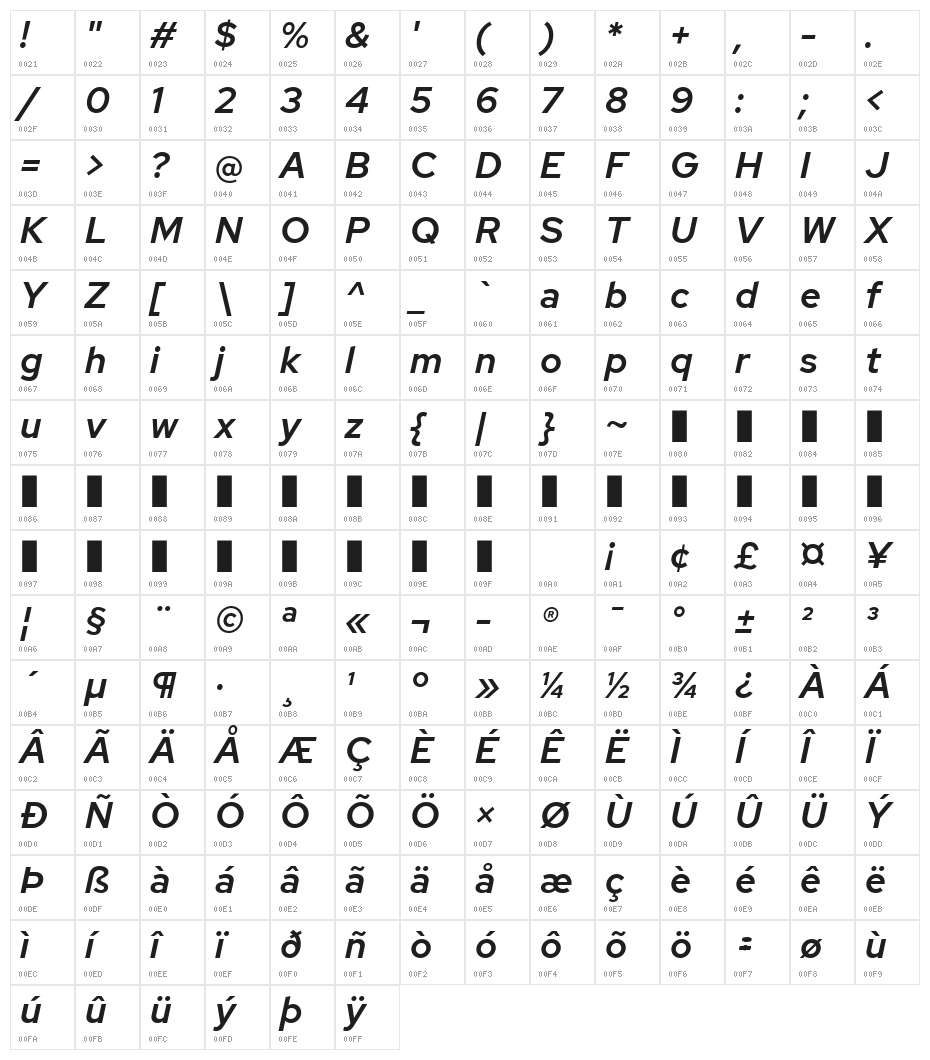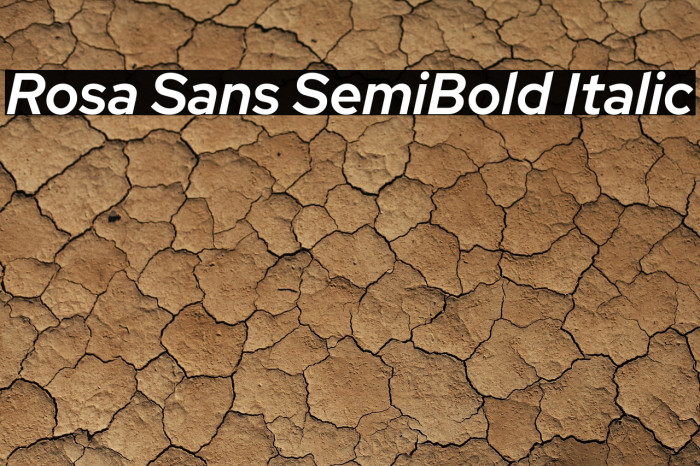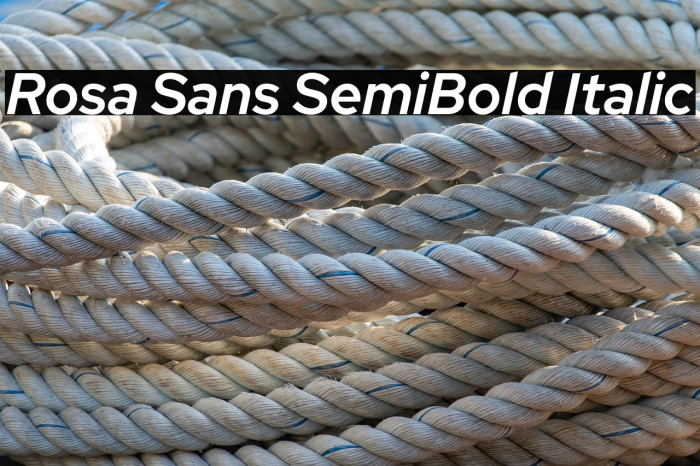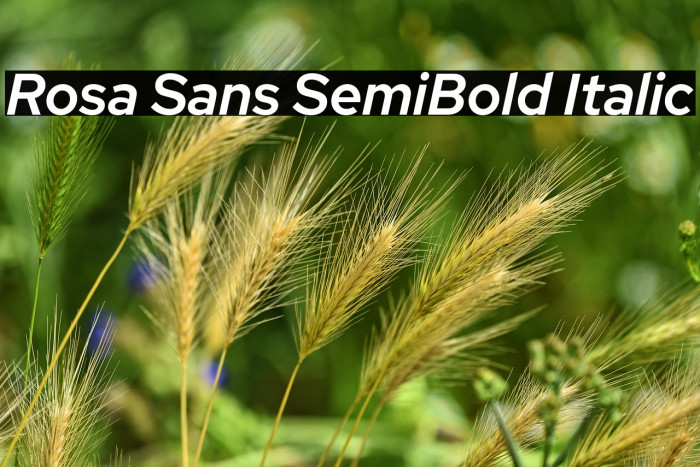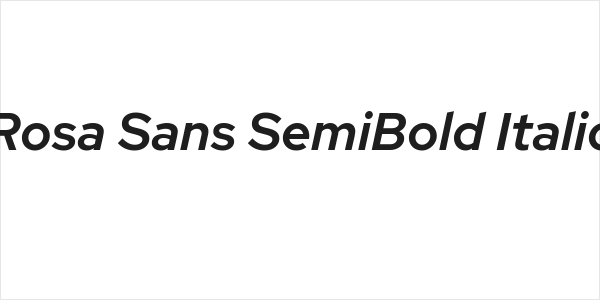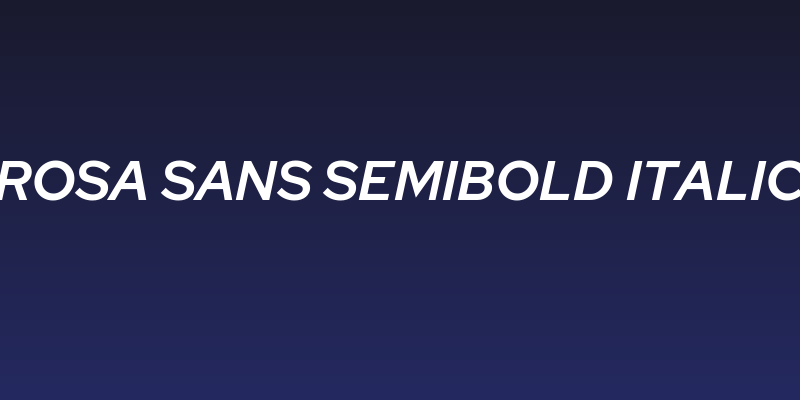
Rosa Sans SemiBold Italic Font
Rosa Sans SemiBold Italic Description
This font exhibits a sleek and modern sans-serif style with a semi-bold weight, providing a strong yet elegant appearance. The italicized form adds a dynamic and forward-leaning character, making it suitable for contemporary design projects. The characters are well-proportioned with a consistent stroke width, ensuring readability across various sizes. The numerals and special characters maintain the same stylistic features, ensuring uniformity throughout. Its clean lines and smooth curves make it versatile for both digital and print media.
| Proposed Projects | Ideal for branding, advertising, web design, and editorial layouts where a modern and dynamic look is desired. |